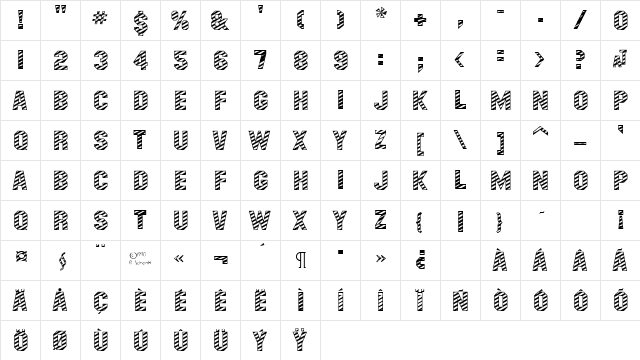
MasheenConvicted Regular
Design Context for MasheenConvicted Typeface
MasheenConvicted is a composed and adaptable typeface that performs quietly and consistently across a wide range of design contexts.